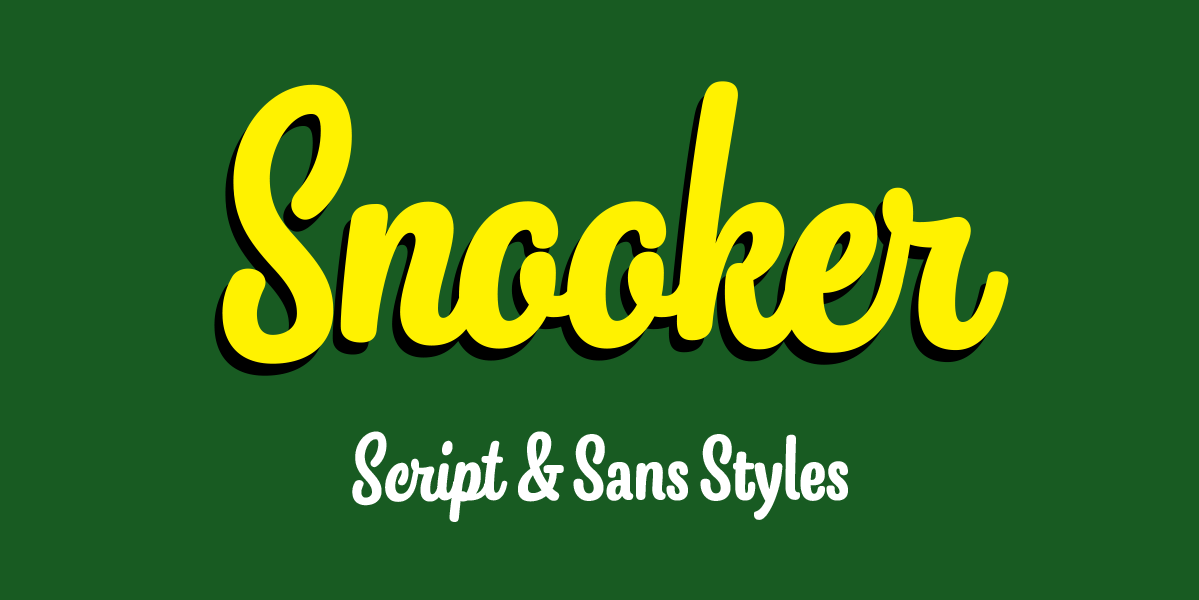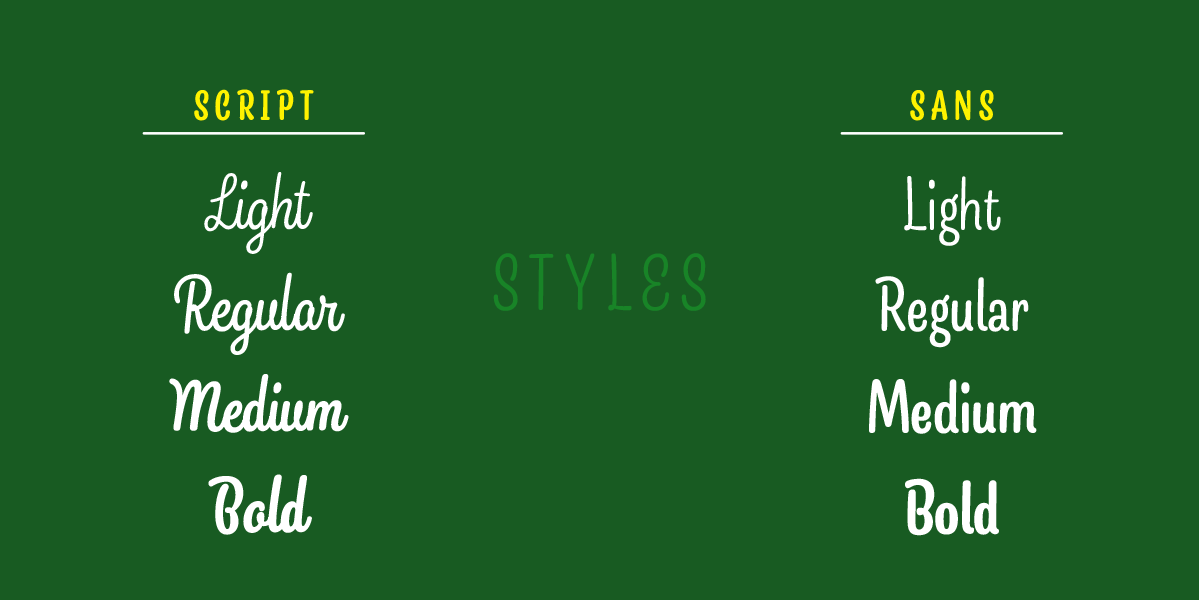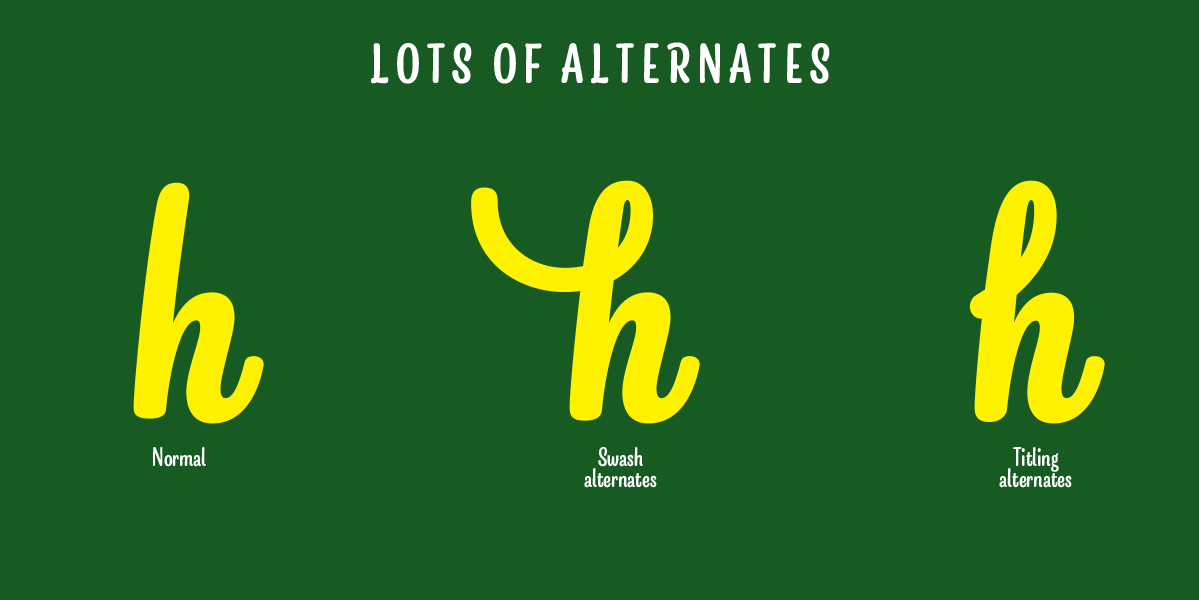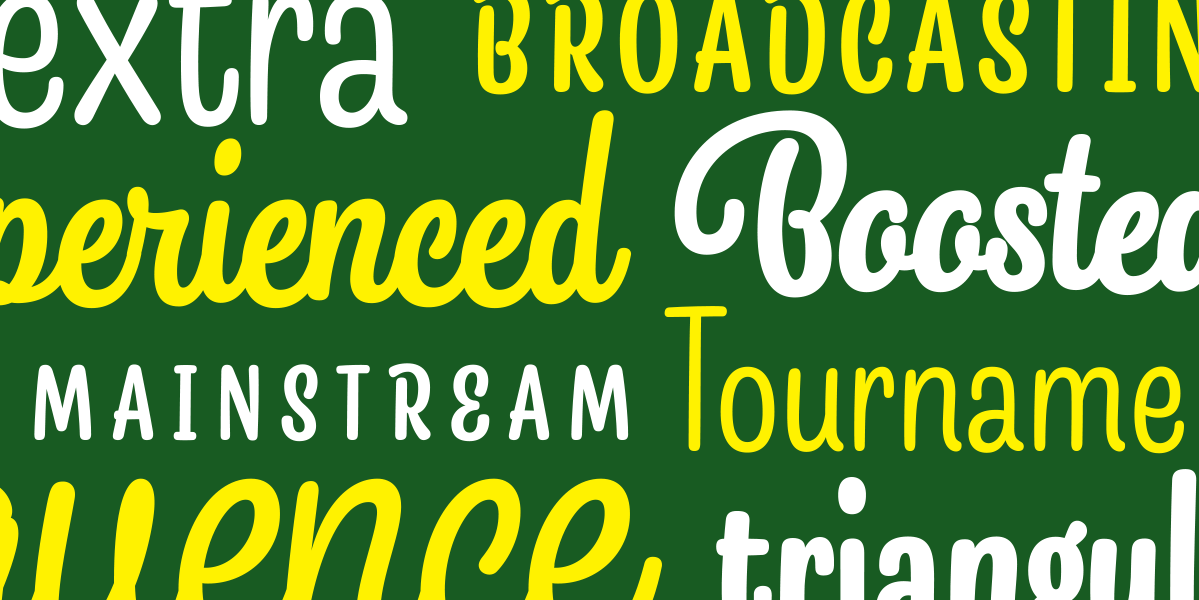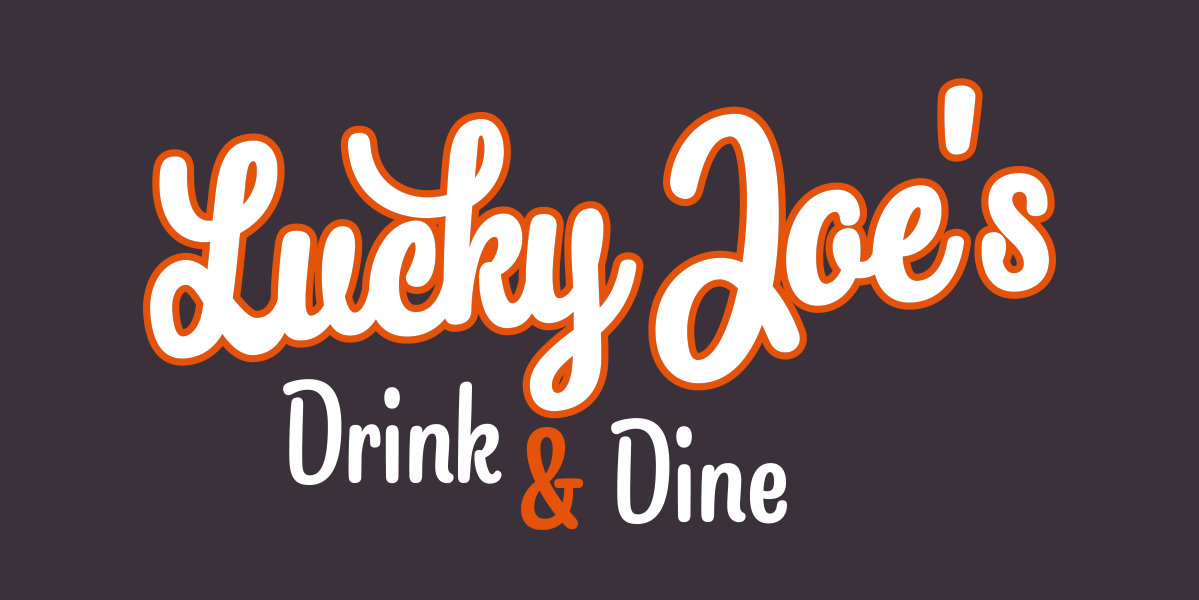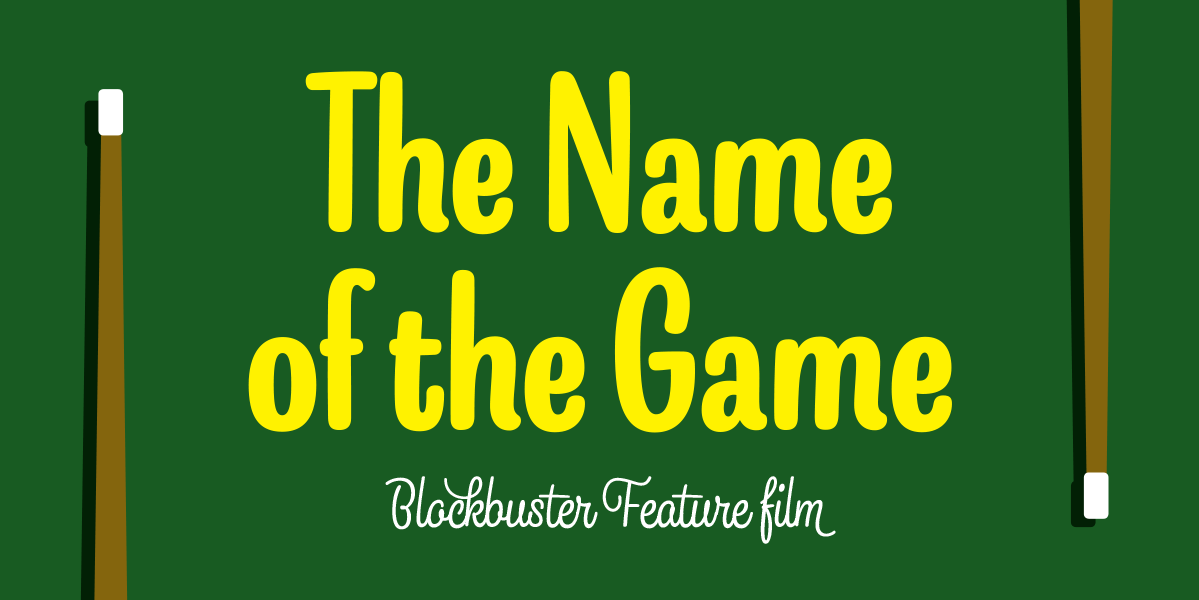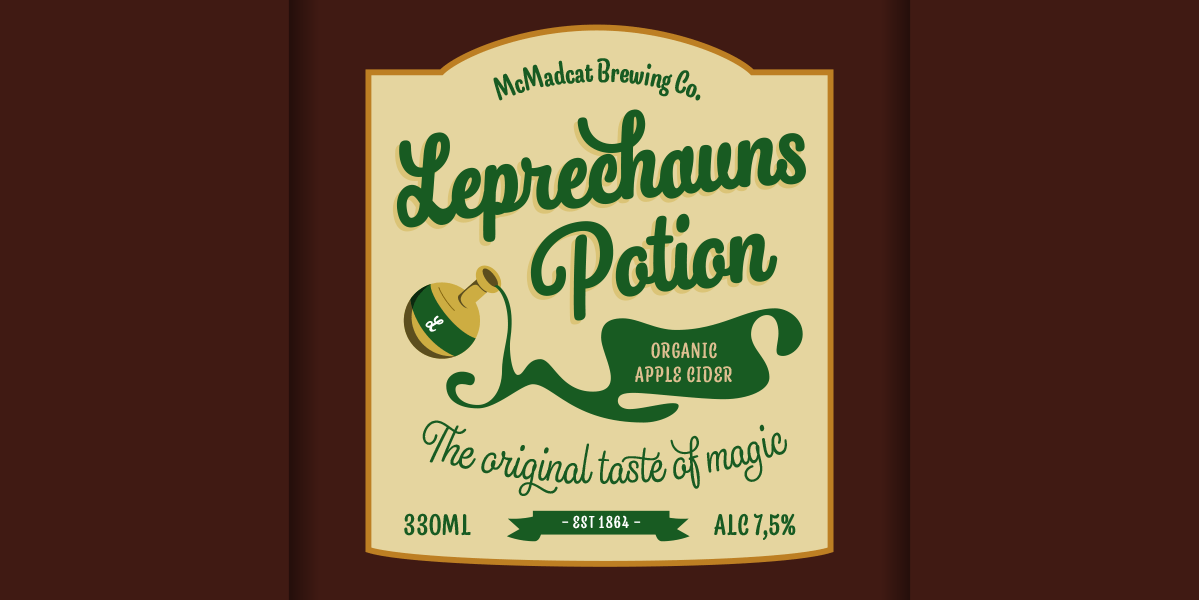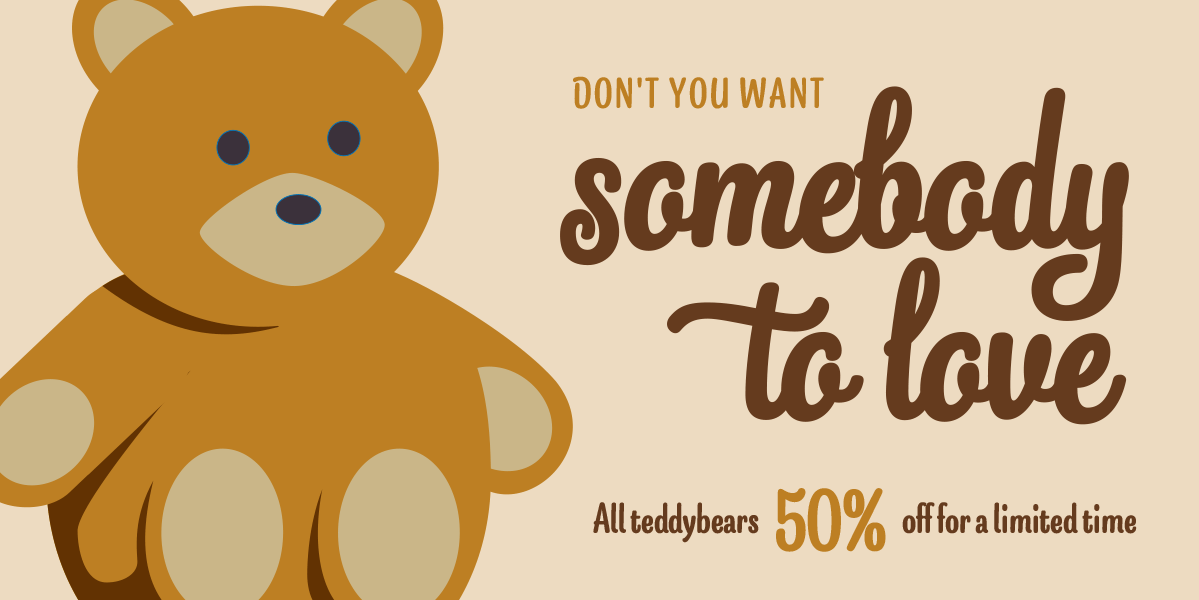
Snooker
Font Family by Fenotype
Snooker is a playful and rounded low contrast type family with sans and script styles. The styles work great together or alone, making Snooker a versatile typographic tool.
There are four weights in both sans and script, from the elegant Extra Light to the attention grabbing Bold weight. The script styles are packed with opentype alternates for customising your design. The family is perfect for branding, packaging and advertising purposes.
The exceptionally long ascenders and descenders give Snooker it's distinct personality which helps your designs to stand out from the crowd.